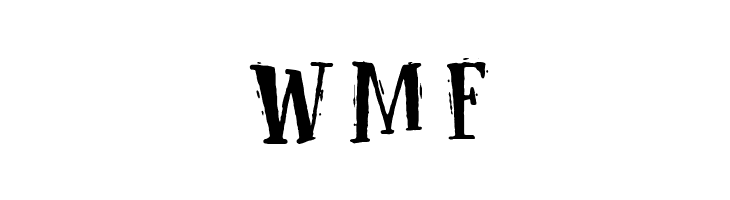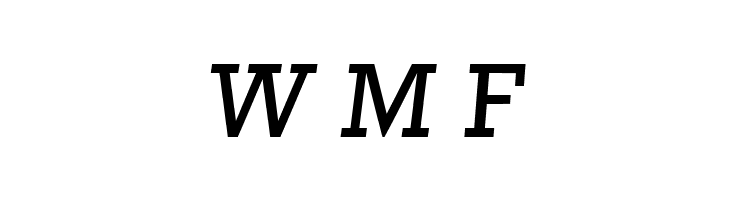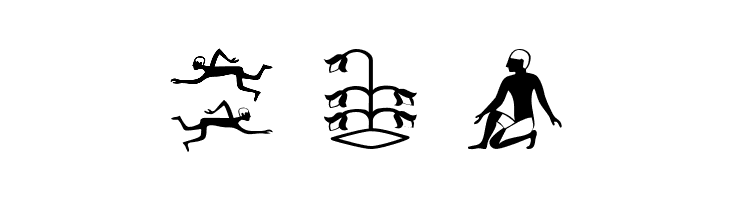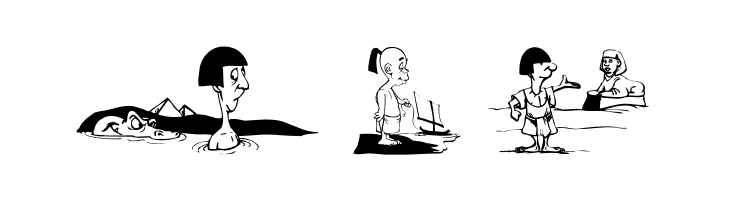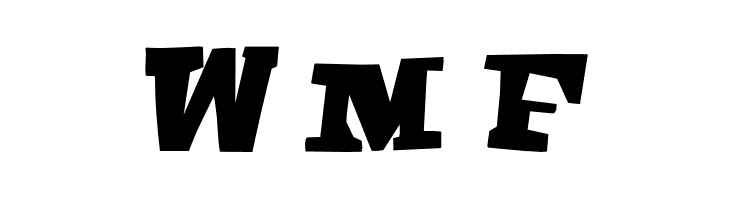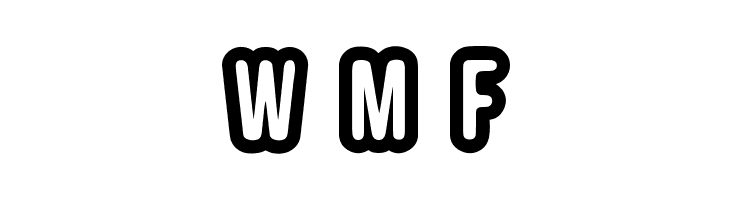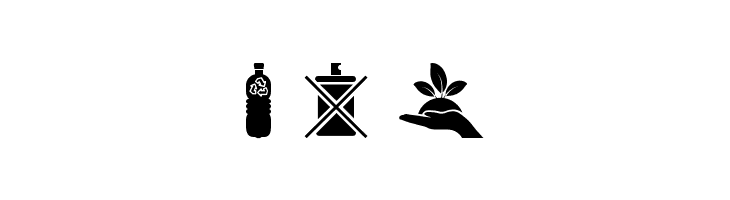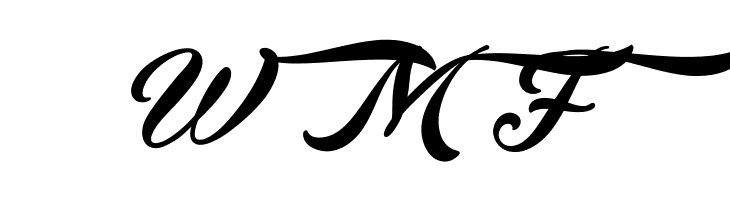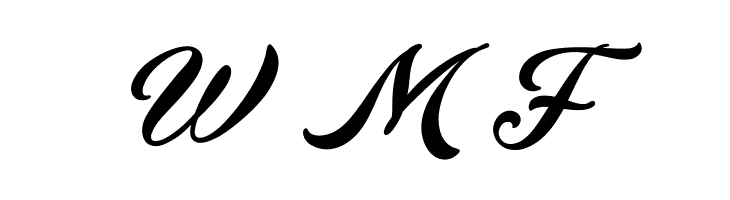
A collection of abstract, Easter Island-inspired symbols with a bold, artistic style.
A decorative and abstract font inspired by ancient tribal art, featuring bold and whimsical characters.
A distressed, hand-drawn font with a rustic and vintage feel.
A whimsical serif font with decorative arrow-like embellishments.
An elegant, flowing script font with a sophisticated cursive design.
A bold, geometric font with a mix of solid and striped elements.
An artistic font with characters resembling abstract faces in circular shapes.
Bold, high-contrast ecology and sustainability icon set.
An elegant, flowing script font with ornate, decorative letterforms.
A bold, modern cursive font with high contrast and tight spacing.
A playful, face-themed decorative font with bold geometric shapes.
Abstract faces with geometric shapes, not a traditional font.
Education-themed dingbat font with detailed school-related illustrations.
A bold, rounded font with thick outlines and a playful, modern style.
An abstract, symbolic font with a blend of sharp angles and smooth curves.
An ancient script-inspired font with bold, angular, and geometric characters.
A playful, hand-drawn font with a whimsical and artistic style.
Bold, playful icon-based font with food motifs.
Abstract, pill-shaped design with bold black and white patterns.
A bold, playful font with characters enclosed in oval shapes, ideal for decorative use.
A bold serif font enclosed in ovals, offering a decorative and impactful style.
A classic serif font with modern elegance and unique hieroglyphic symbols.
A bold, geometric font with sharp, angular characters.
Decorative pictogram font inspired by Egyptian hieroglyphs.
Pictorial font inspired by Egyptian hieroglyphs.
A bold, hand-drawn style font with thick, uneven strokes.
A pictorial silhouette font evoking ancient Egyptian motifs.
A collection of Egyptian-themed illustrative icons depicting gods, symbols, and scenes.
A decorative set of icons inspired by ancient Egyptian culture and mythology.
A decorative font with cartoon-style Egyptian mythology illustrations.
A bold, slab serif font with a vintage yet modern appeal.